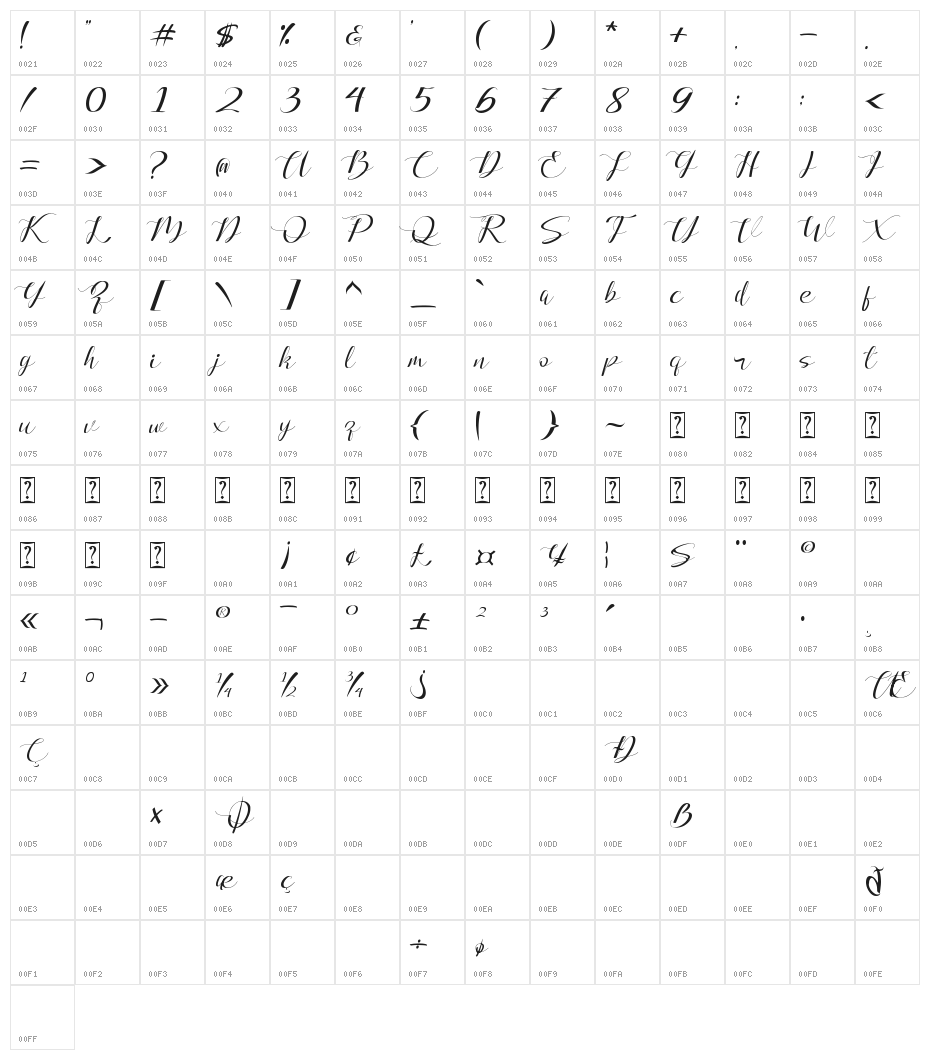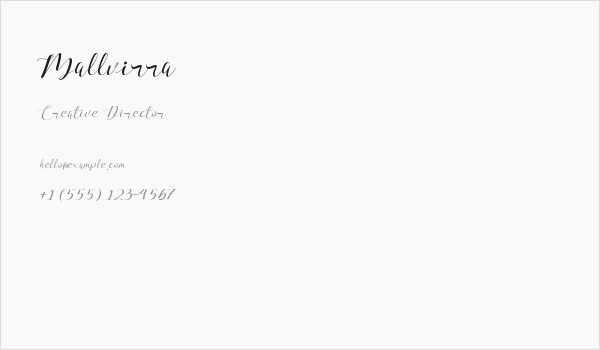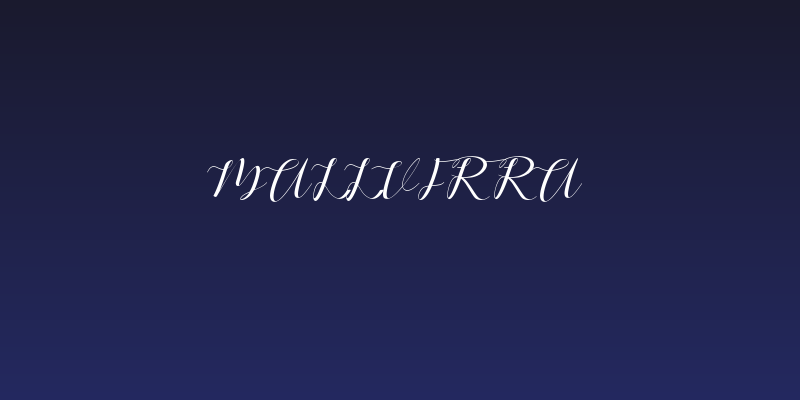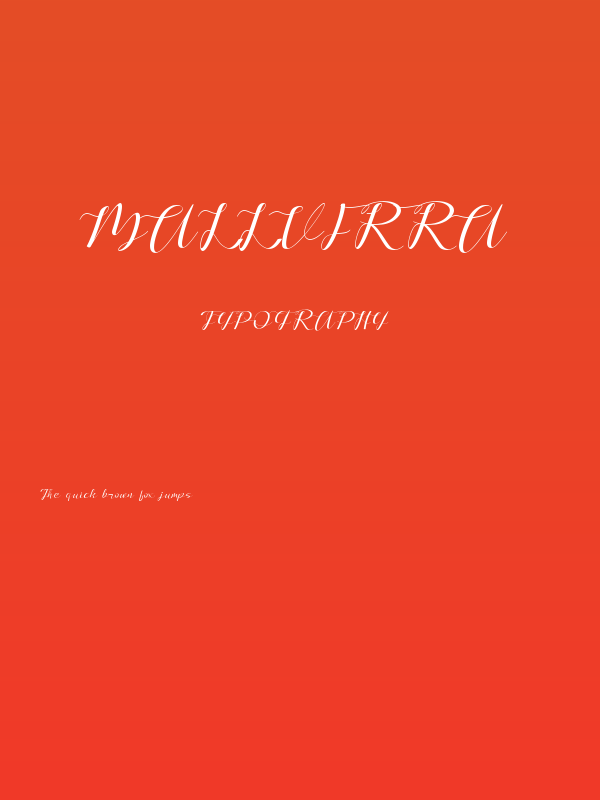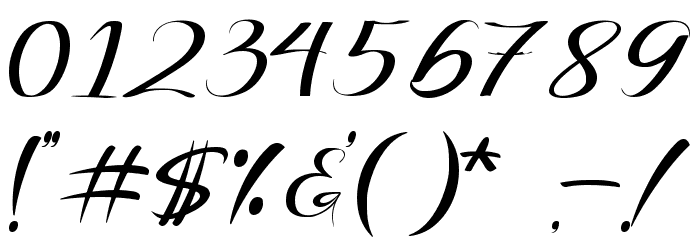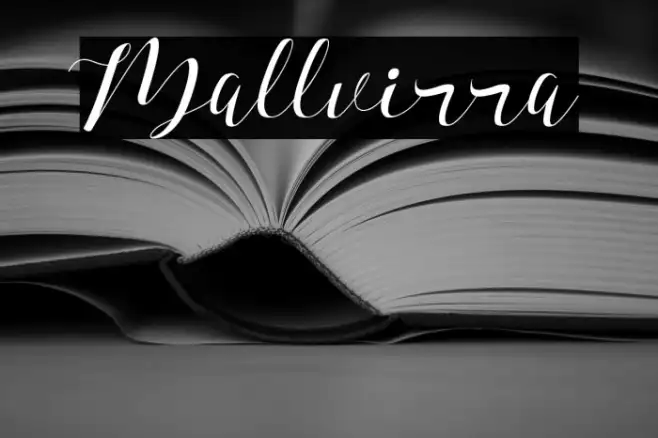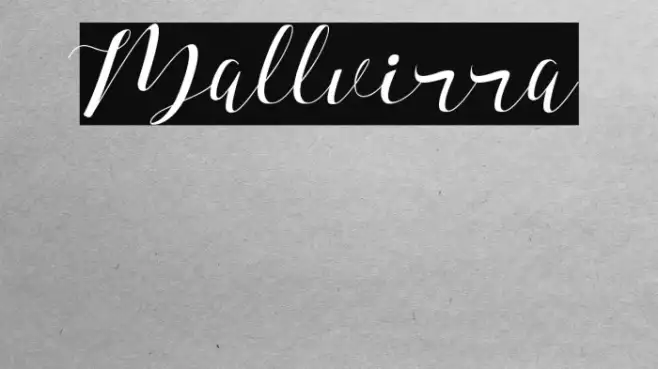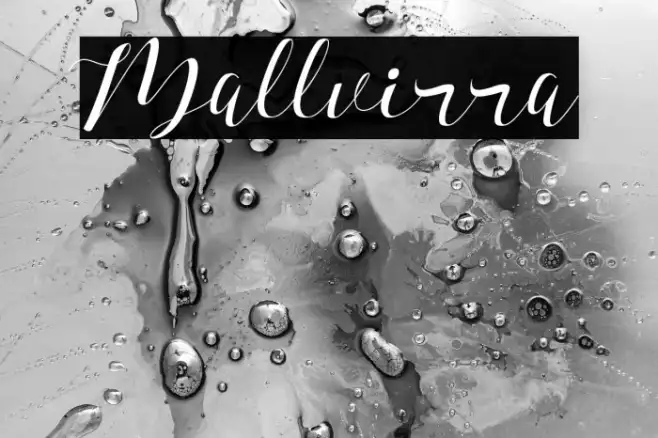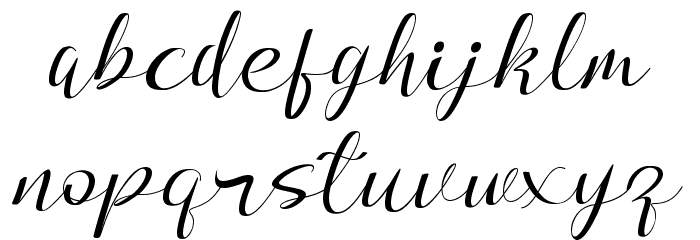
Mallvirra Font
Mallvirra Description
This elegant script font features flowing, interconnected letters that exude a sense of sophistication and grace. The uppercase letters are ornate, with sweeping curves and flourishes that add a touch of luxury. The lowercase letters maintain a consistent style, with smooth transitions and a slightly slanted orientation that enhances readability. The numerals are designed with a similar flair, ensuring they complement the overall aesthetic. Special characters are crafted with attention to detail, maintaining the font's cohesive look. This font is perfect for projects that require a touch of elegance and refinement.
| Proposed Projects | Ideal for wedding invitations, elegant branding, luxury packaging, and high-end editorial design. |